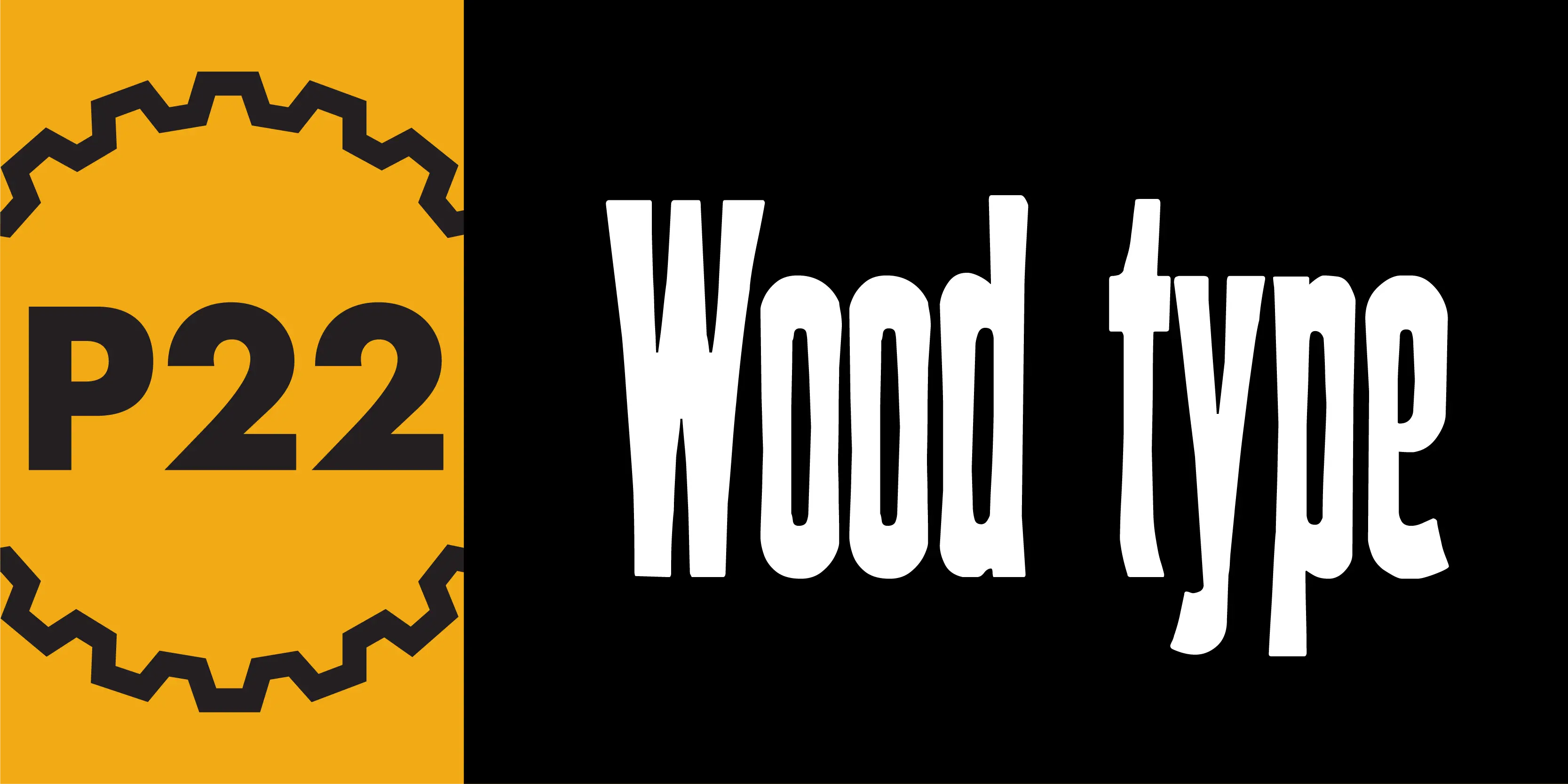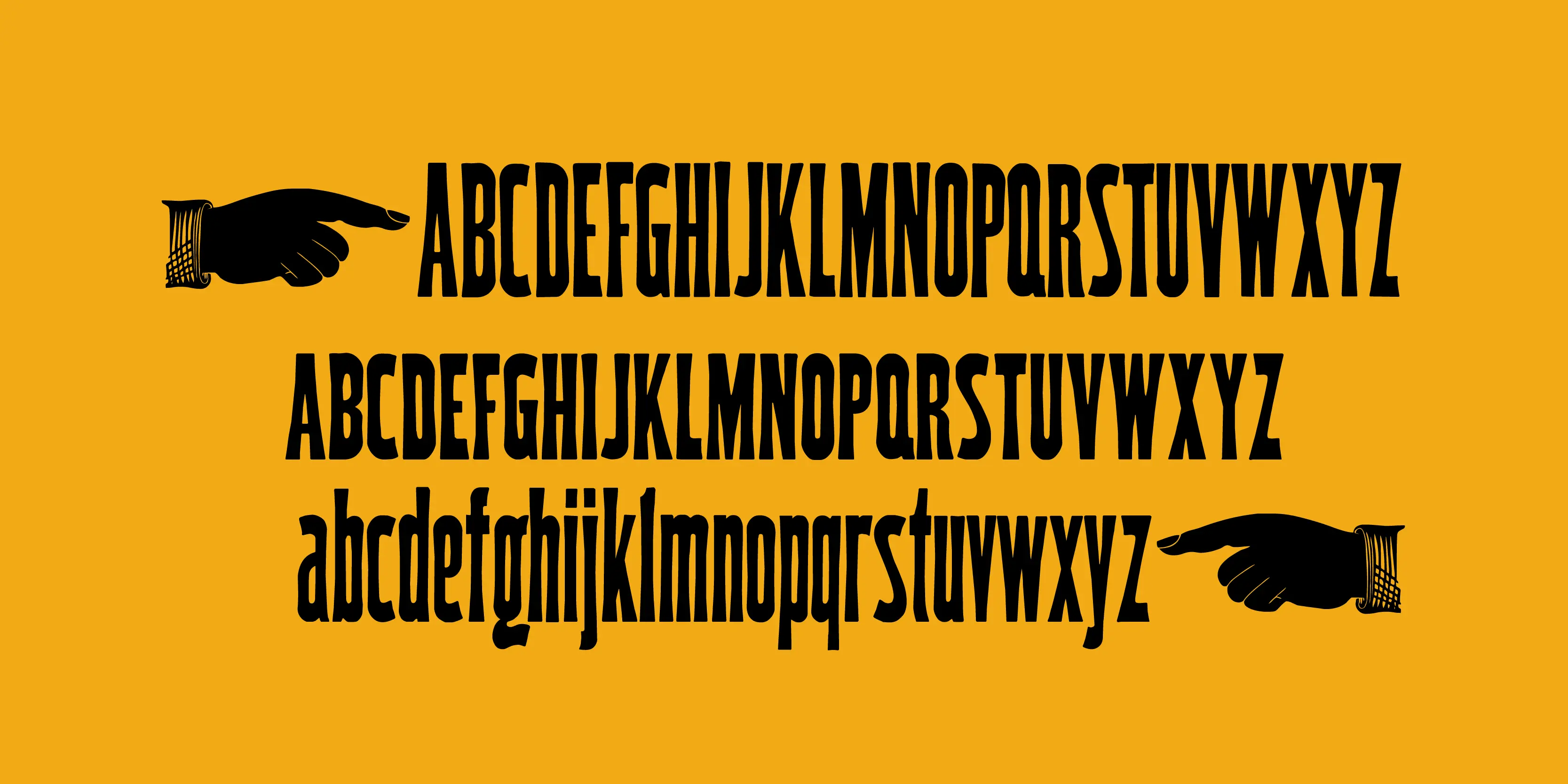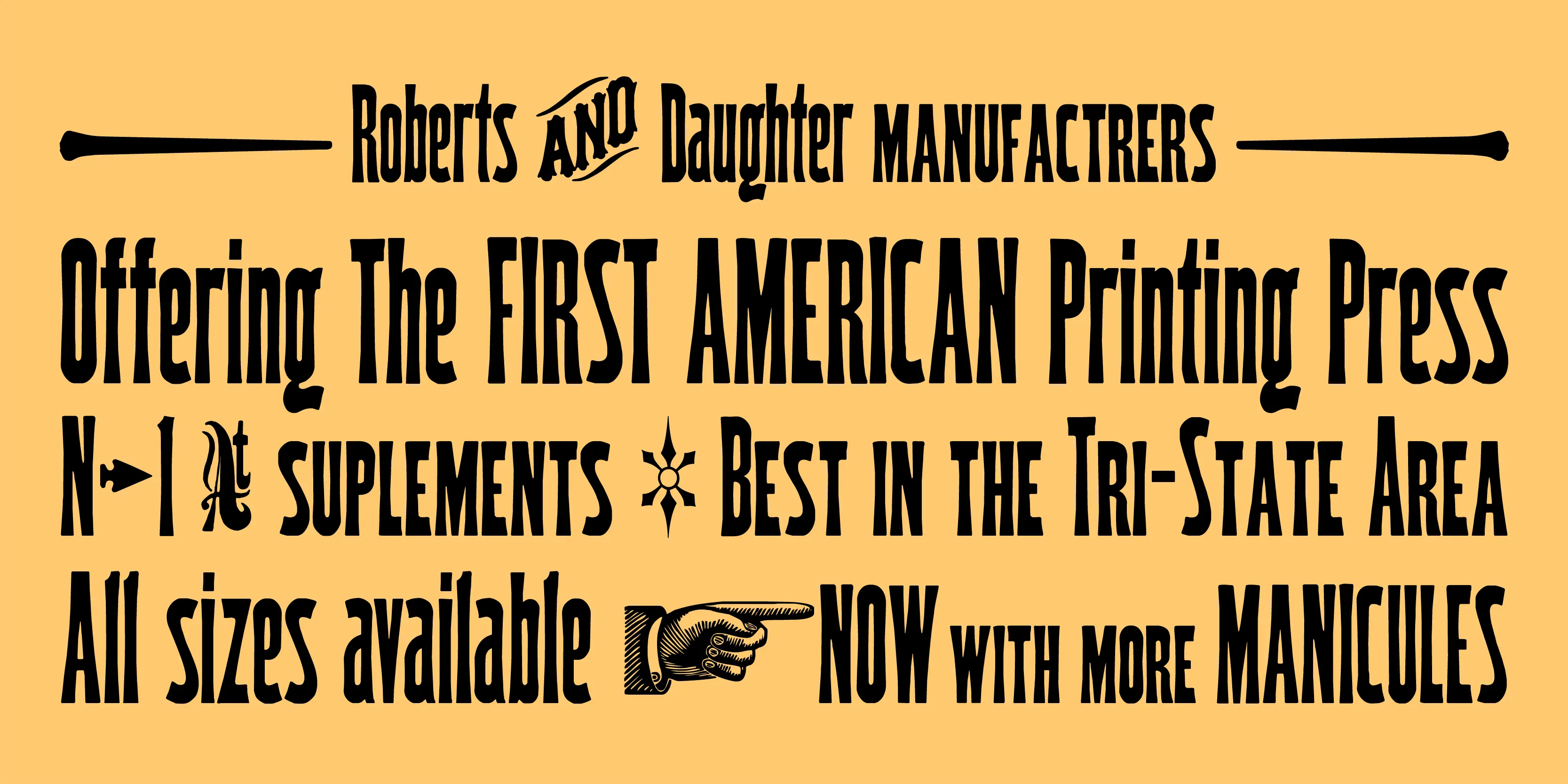
Wood Type Font Family
Wood Type Regular
Wood Type Small Caps
Wood Type Extras One
Wood Type Extras Two
Wood Type
P22 Wood Type is a set of four fonts based on 19th Century American wooden printing types. Wood Type Regular is a condensed Tuscan styled font with a lower case and international character set. Wood Type Small Caps is a variation of the regular with small caps in place of the lower case. Wood Type Extras One & Two feature over 150 borders, stars, pointers, combination dashes, manicules & other decorative embellishments. Perfect for evoking 19th Century printing & Americana at its most genuine.
- Common Ligatures
- Discretionary Ligatures
- Stylistic Alternates